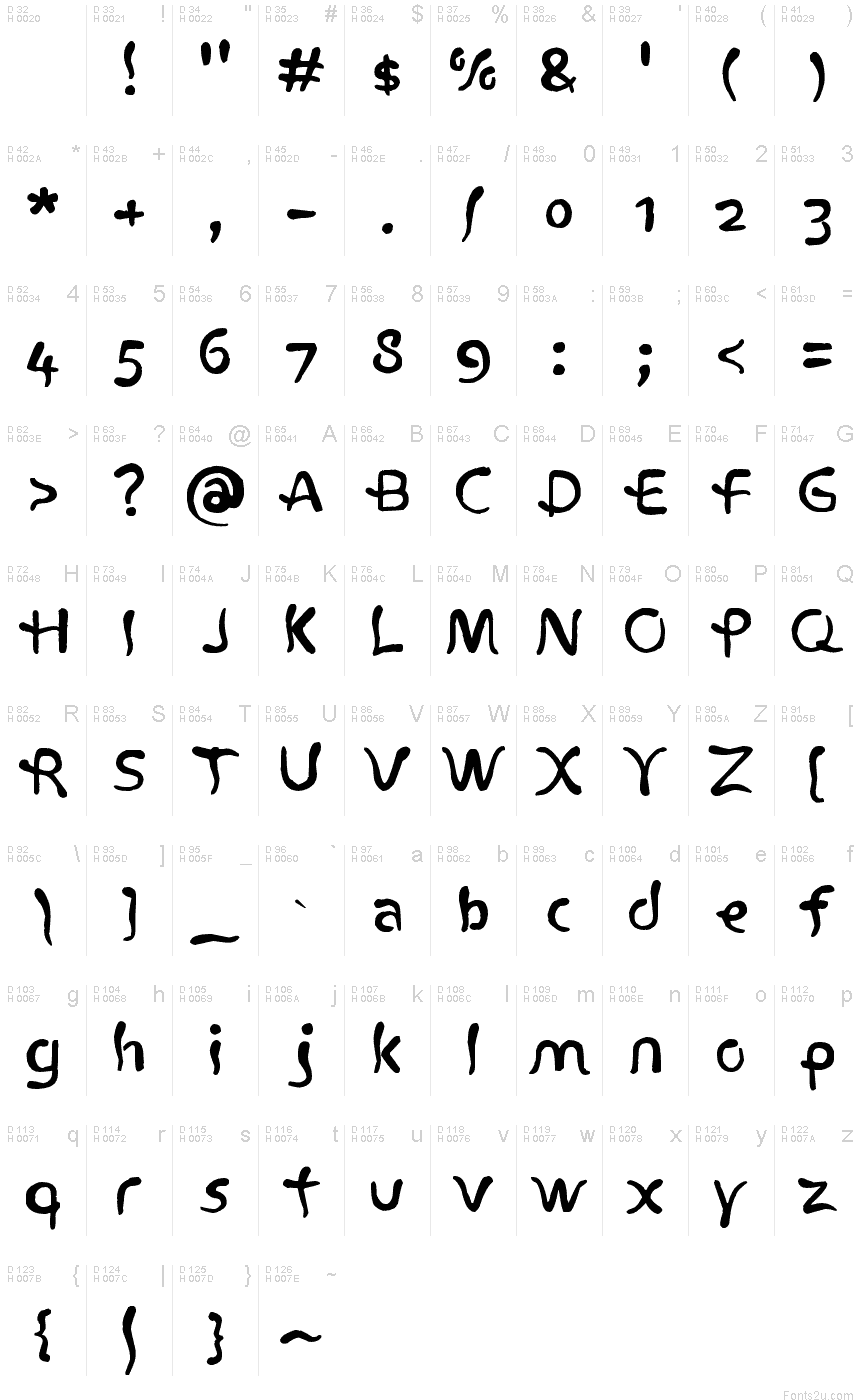
Atlantius
Atlantius by Matthew Stork is a free distorted display font with broad, uneven strokes and deliberately misshapen letters. Its forms wobble between narrow and swollen proportions, with joins that resemble roughly cut signage. The spacing has a restless, improvised beat.
Festival posters suit underground music, street-food events, and offbeat comedy promotions because the lettering has a scrappy physical quality. Merchandise and youth-oriented entertainment branding can use the same irregular forms to signal an informal, unruly audience.
The font uses recognizable Western letters and is inspired by Sumerian cuneiform writing and hieroglyphics.